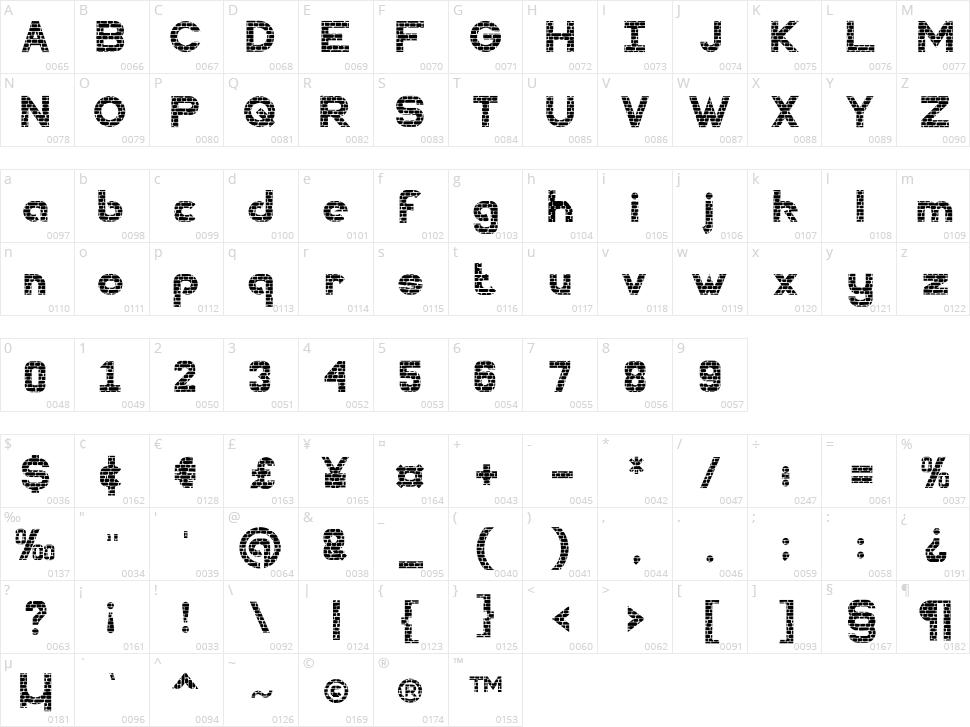
Brick Wall
Note of the author This font is remake from Super Bold with form of brick. Hope this will usefull for everybody
Designer Name: Indra Gunawan